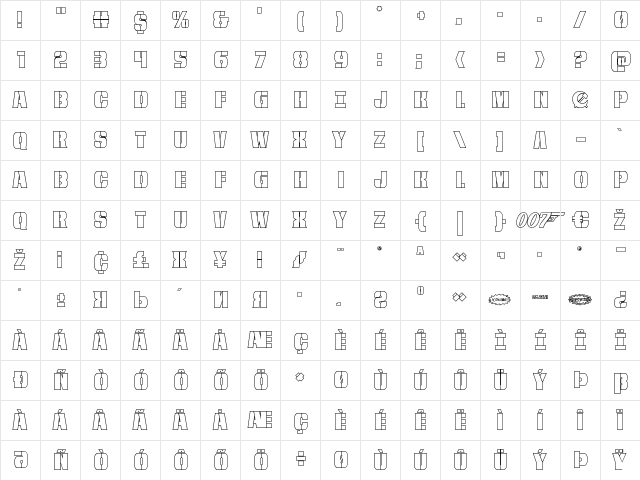
From BOND With Love Outline Regular
Design Context for From BOND With Love Outline Typeface
From BOND With Love Outline brings ornamental detail and strong personality to headlines and identities, where visual impact matters more than quiet functionality.
Font Pairing: Pair with a clean neutral sans-serif for body copy to let From BOND With Love Outline's character lead without overwhelming the composition.
Pro Tip: Use From BOND With Love Outline exclusively at display sizes — it was designed to be seen, not read at length. Let a neutral companion handle body copy.